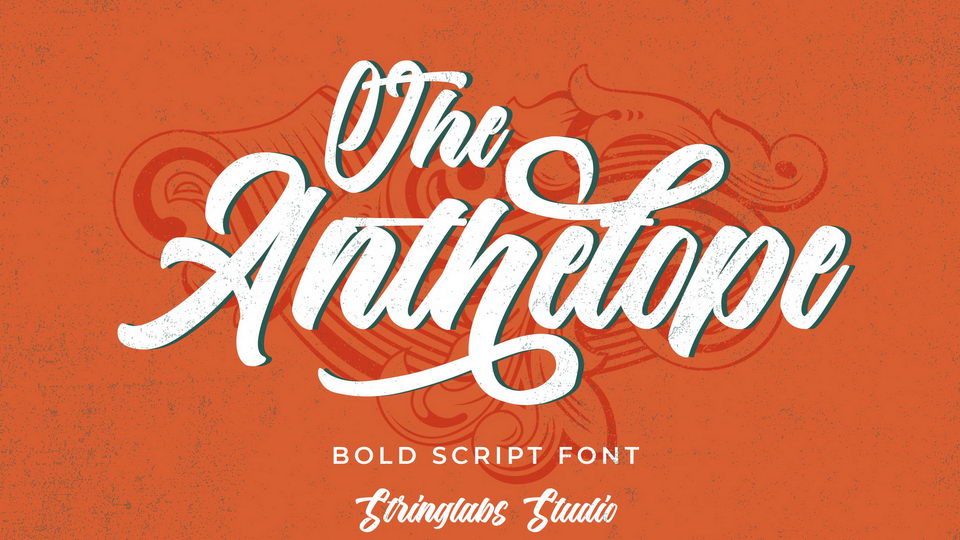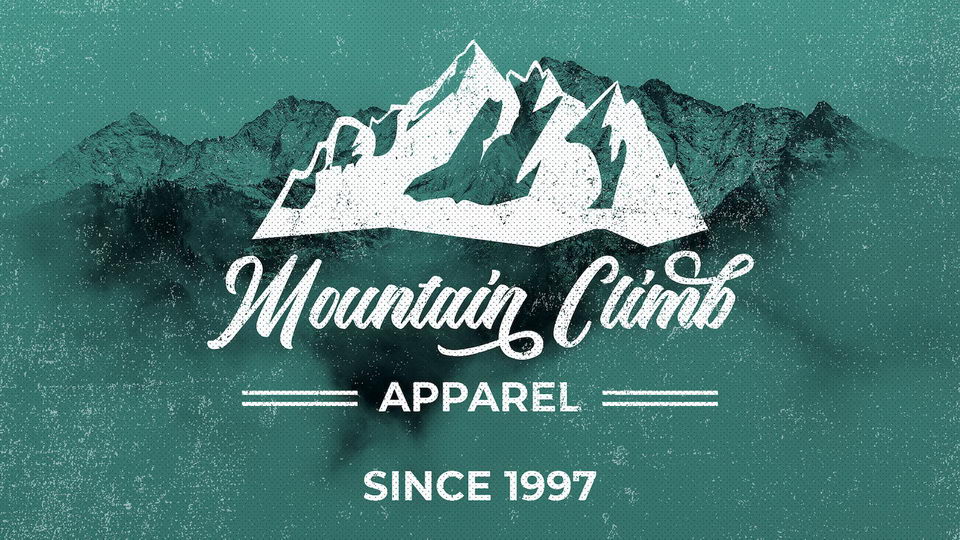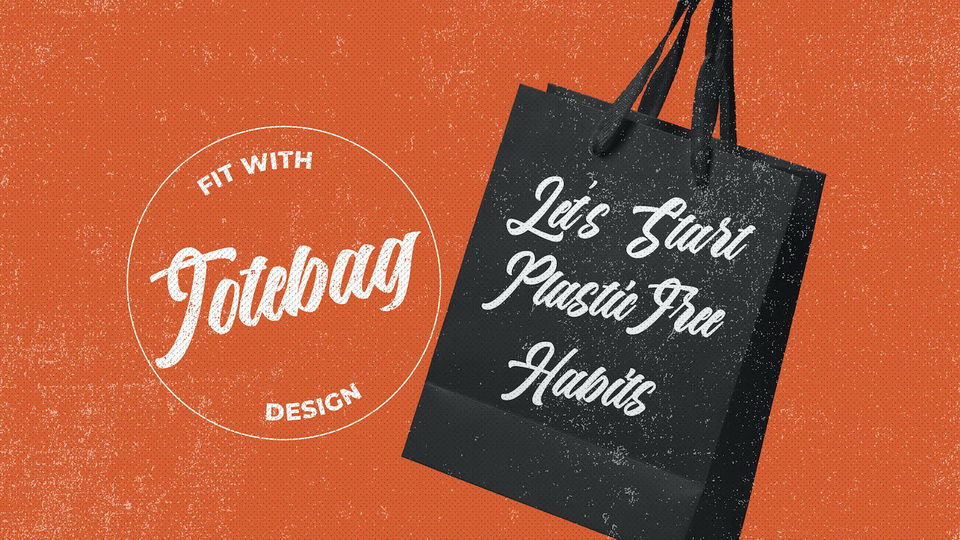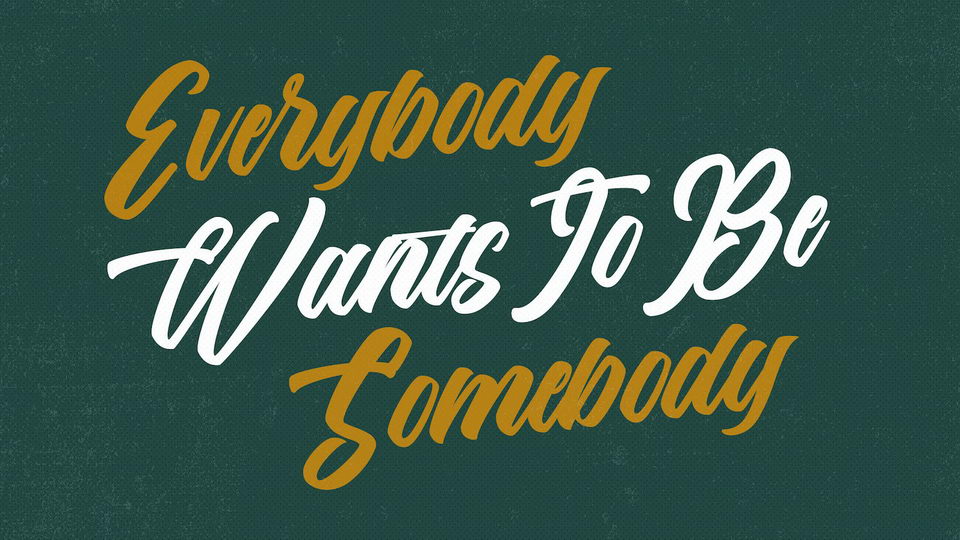
The Anthelope Font
Anthelope is a retro bold script with groovy style, unique design taste and combine with classic retro style of the 80s, trendy, vintage, and sporty.
The Anthelope is perfect for retro lovers, besides this font is also perfect if used for brands such as: barbershop, motorcycle club, clothing, coffee shop, shoe brands, vapor shop, hipster and many more.